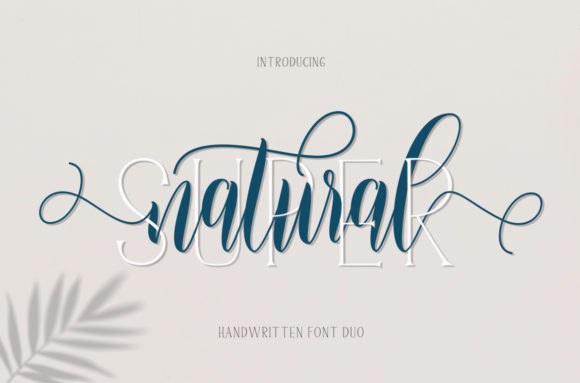
Enter the realm of elegance and sophistication with Super Natural Duo Font, a meticulously crafted duo font that breathes life into your creative endeavors. This enchanting font family, hailing from the talented hands of Cut Story, seamlessly harmonizes a graceful script and a distinguished serif, granting you limitless possibilities to elevate your designs.
Super Natural Duo Font is more than just a collection of letters; it is an artistic symphony that dances upon the page, evoking emotions and captivating hearts. Let the flowing curves of the script font enchant your wedding invitations, adding a touch of ethereal romance to this special day. Alternatively, immerse yourself in the timeless charm of the serif font, perfectly suited for branding projects, logos, and other business needs.
Whether you seek to adorn your projects with a touch of whimsical beauty or convey a sense of timeless sophistication, Super Natural Duo Font stands ready to fulfill your creative vision. Its versatility extends beyond the printed page, seamlessly gracing digital designs, website layouts, and social media posts. Unleash your imagination and let Super Natural Duo Font transform your ideas into captivating realities.
But Super Natural Duo Font is more than just a visually stunning font; it's an investment in your creative journey. Its versatility and adaptability make it an indispensable tool for designers, allowing them to tackle a wide range of projects with confidence. Its user-friendly nature ensures a smooth and seamless experience, empowering you to focus on your creative vision without technical hindrances.
With Super Natural Duo Font, you'll discover a font that's not just a collection of glyphs, but a gateway to a world of creative possibilities. Embrace the allure of this captivating duo font and embark on a journey of artistic exploration, where your imagination knows no bounds.